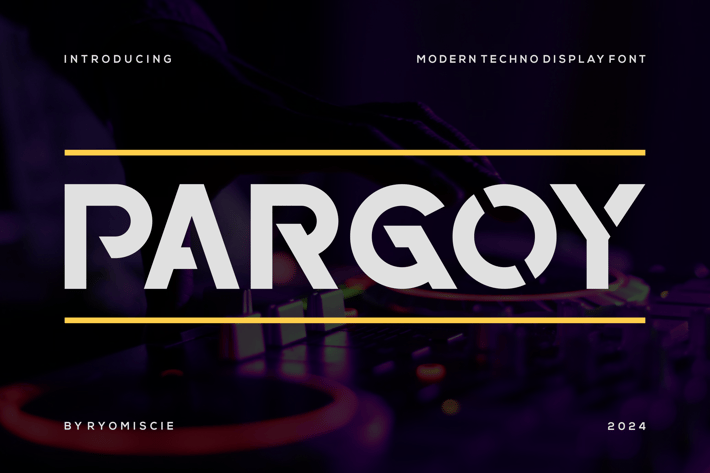
Pargoy - Modern Techno Display Font
Introducing our new product Pargoy Font - Modern Techno Display Font
Pargoy Font - Modern Techno Display Font is a bold and authentic display font. The font is suitable for any branding project like logo,
t-shirt printing, esport, and many more. outstanding in a wide range of contexts.